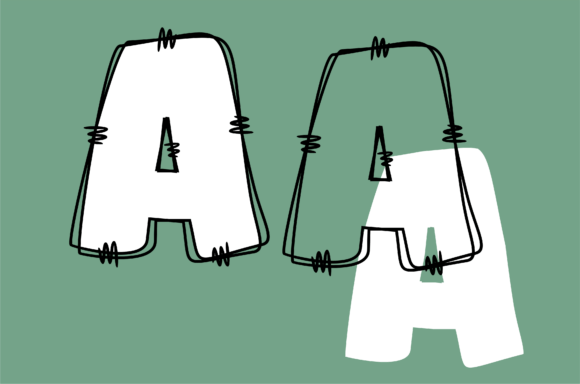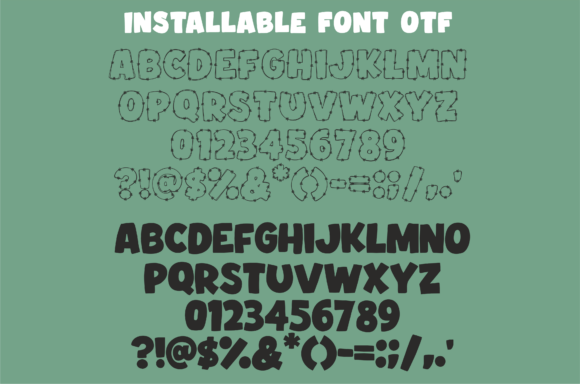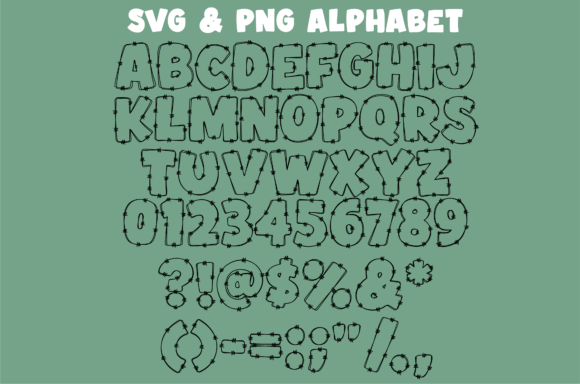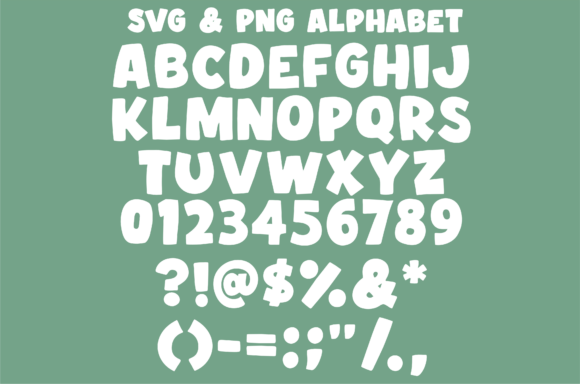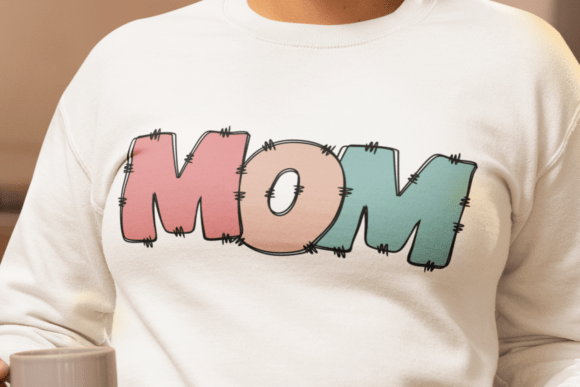
Bring Your Creations to Life with the Doodle ABC Font
Have you ever found yourself rummaging through your stash of craft supplies, searching for the perfect font to match your artistic vision? You finally stumble upon a dusty old notebook, and as you flip through its pages, a quirky hand-drawn alphabet catches your eye. The excitement is palpable as you envision the endless possibilities – from colorful stickers to whimsical classroom materials.
This is exactly what the Doodle ABC Font brings to the table: a playful, hand-drawn display font that’s bursting with personality and fun. With its bold shapes and sketch-style stitching details, this font is the perfect addition to any design project. Whether you’re creating educational materials or crafting something truly unique, the Doodle ABC Font is a valuable asset for any designer looking to add a touch of whimsy to their work.
Doodle ABC Font Key Features
- Unique Hand-Drawn Design: The Doodle ABC Font features a unique hand-drawn design that gives it a playful and creative feel.
- Alphabets and Punctuation: The font includes a complete set of alphabets (A-Z) and punctuation marks, making it suitable for various design projects.
Doodle ABC Font Review
I recently had the chance to work with the Doodle ABC font, and I must say, it’s a unique and fun addition to any design project. ✨ The font’s playful, hand-drawn style adds a touch of whimsy and personality to text, making it perfect for children’s books, educational materials, or any project that needs a bit of a lighthearted feel. ✨ The font’s customization options allow for easy color changes and line widths, making it easy to adapt to different design styles.
However, I do have a few concerns about the font’s limitations. ⚠️ The font’s legibility can be a bit of an issue, especially at smaller font sizes. The letters can become blurry and difficult to read, which may not be ideal for projects where text is a primary focus. Additionally, the font’s compatibility with certain software and operating systems may be limited.
- Unique, hand-drawn style
- Customizable colors and line widths
- Perfect for children’s books, educational materials, or lighthearted projects
- Legibility issues at smaller font sizes
- Limited compatibility with certain software and operating systems
Overall, I think the Doodle ABC font is a great choice for projects where a playful, hand-drawn style is desired. However, designers should be aware of its limitations and use it accordingly. With a bit of caution and consideration, this font can be a valuable addition to any design project.
1. Experiment with different font sizes and colors to create visual interest.
2. Use the Doodle ABC Font to create playful and whimsical designs.
3. Combine the font with other design elements, such as images and graphics, to create a unique look.
1. Children’s party invitations and decorations.
2. Educational materials, such as worksheets and posters.
3. Social media graphics and advertisements.
Alternatives to Doodle Abc Font
1. Comic Sans MS
Comic Sans MS is a fun, casual font that is similar to Doodle Abc Font in its playful and childlike feel. However, it is more versatile and can be used in a variety of contexts, from informal to semi-formal. It’s a good choice when you need a font that is friendly and approachable.
Comparison to Doodle Abc Font: Comic Sans MS is more formal and professional than Doodle Abc Font, but still conveys a sense of playfulness.